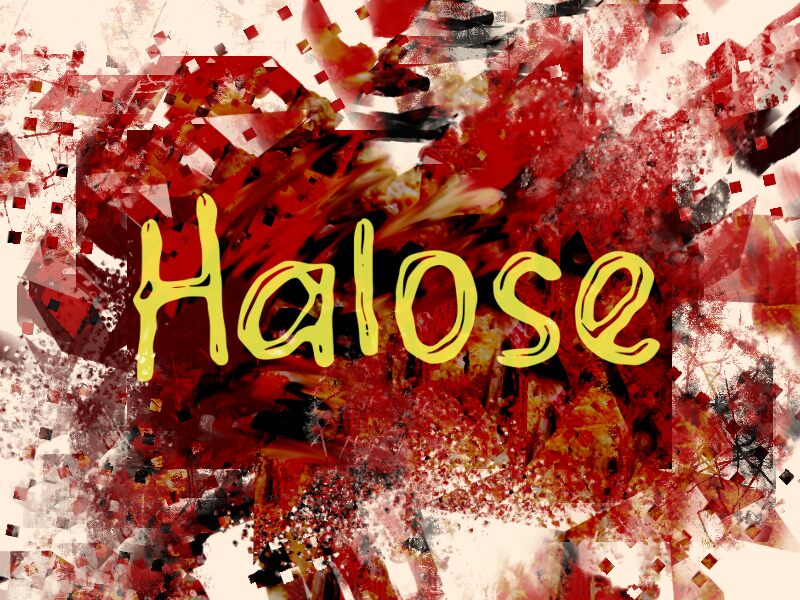
Halose
Halose font by wep is a lively handwritten typeface that exudes a playful and informal charm. This free font features organic shapes and a hand-drawn feel, bringing in an approachable, casual mood of authenticity required for engaging designs.
Halose is a unique and contemporary font that captures the essence of modern design. Its clean lines and versatile styles make it an excellent choice for various applications, from branding to editorial projects.